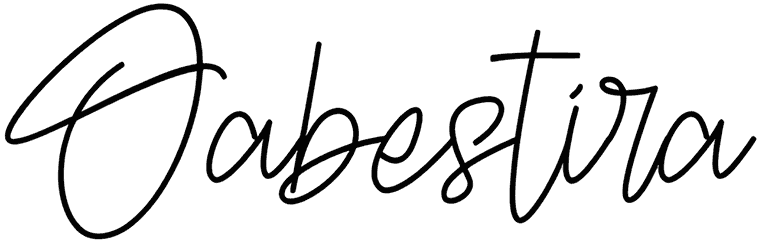
Oabestira Font
When a creative idea inspires you, Oabestrina is ready to make it realistic as soon as possible. It’s a monoline handwritten font featuring a thin, light font with a little unreadable display, but it supports all the characters, even ligatures, and multilingual letters.
Perfect for improving the quality of design and capturing every moment of life. This autograph font has the potential to be your favorite type; you can use it for photography watermarks, signatures, party invitations, magazine covers, and branding purposes.